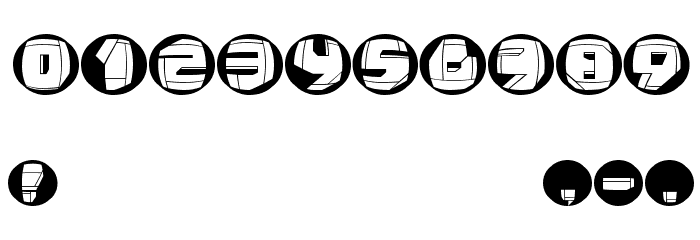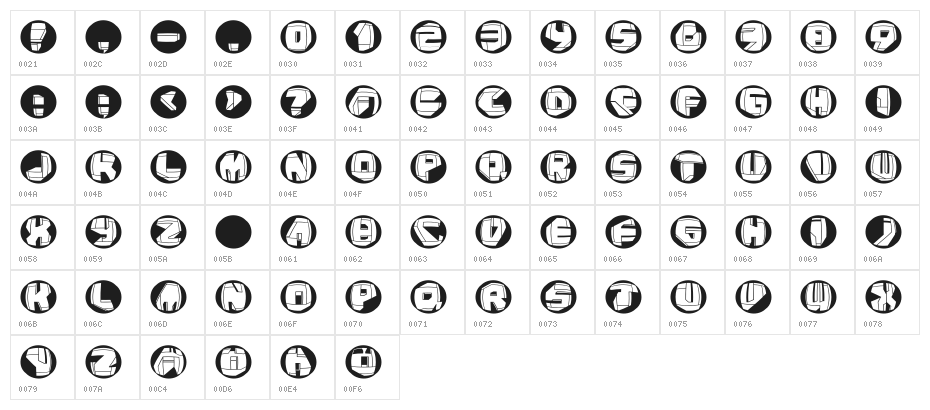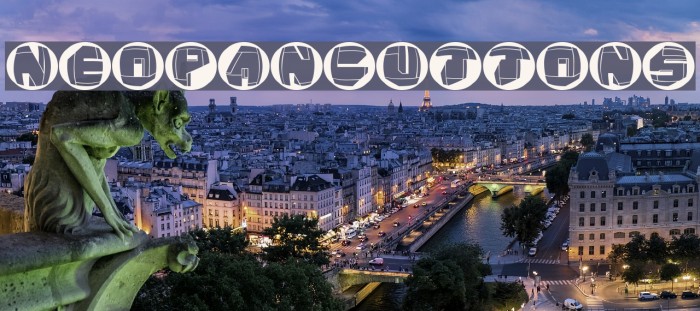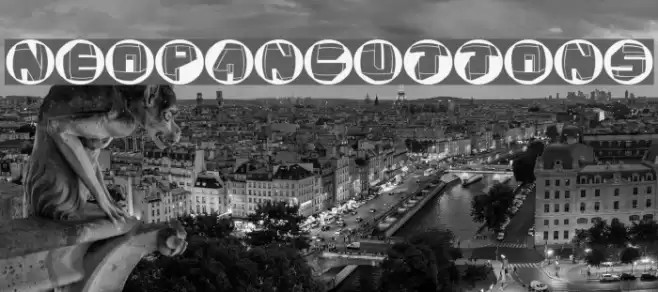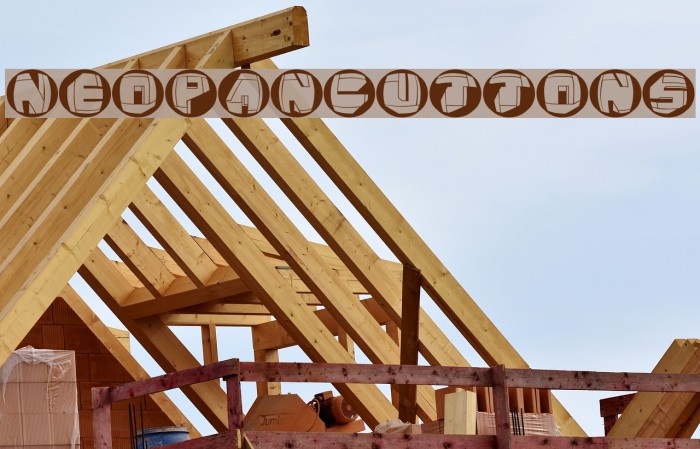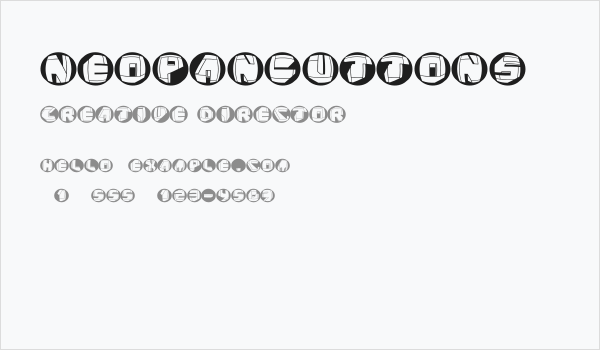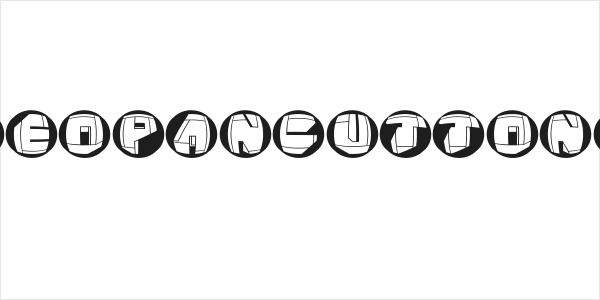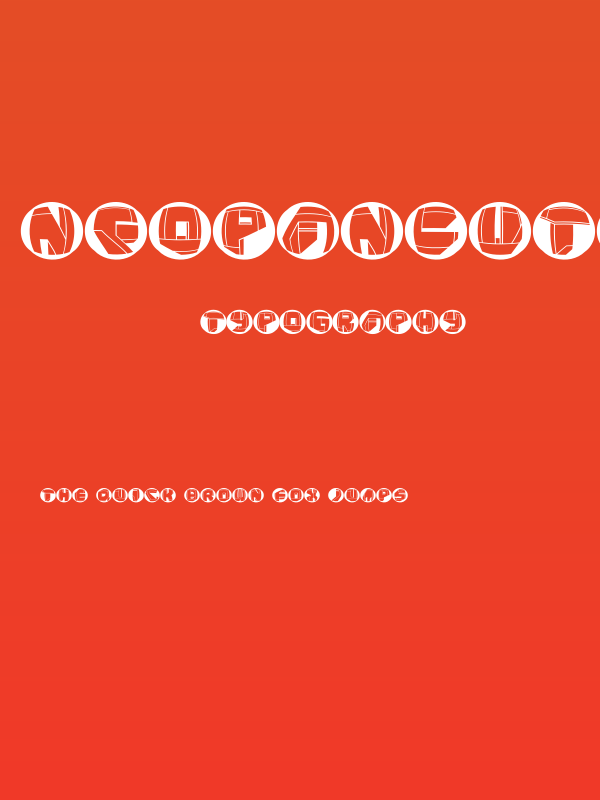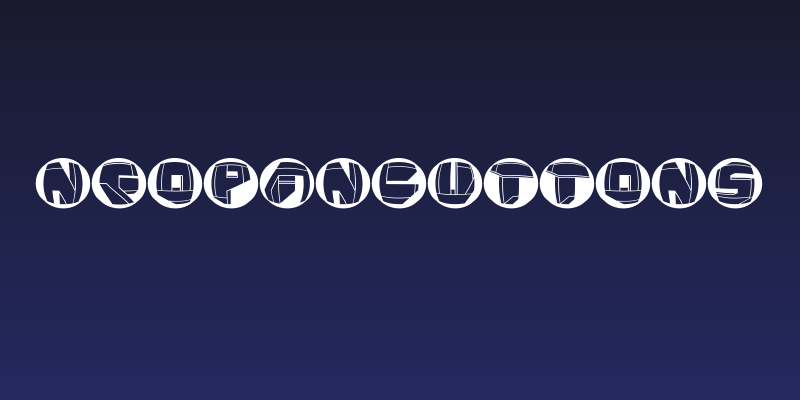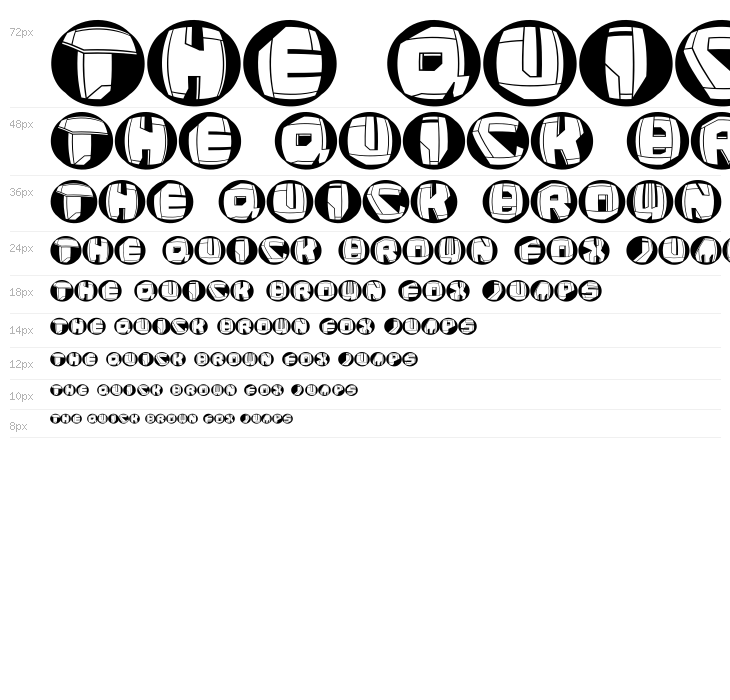
NeoPanButtons Font
NeoPanButtons Description
This font features a unique and modern design with each character enclosed within a circular button-like shape. The letters and numbers are stylized with geometric patterns, creating a futuristic and digital aesthetic. The use of bold lines and contrasting black and white elements gives the font a striking appearance. The characters are evenly spaced within their circular boundaries, ensuring readability while maintaining a distinct visual style. This font is ideal for projects that require a contemporary and tech-inspired look.
| Proposed Projects | This font is perfect for digital interfaces, tech branding, video game titles, and futuristic posters. |